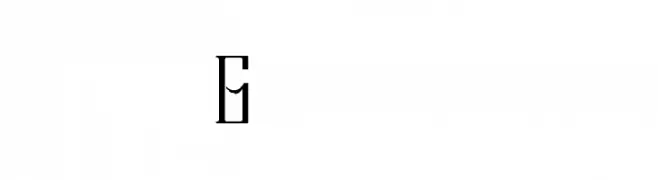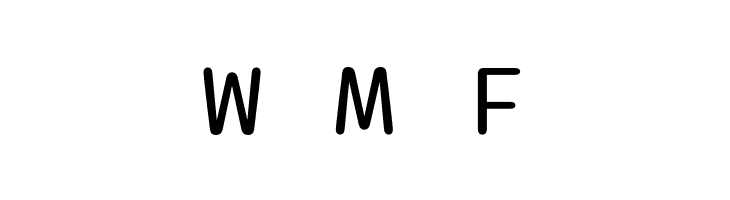
A tall, narrow, and modern font with a sleek, elongated design.
A bold, blocky font with an aggressive, industrial style.
A playful, bold font with rounded edges and a dynamic slant.
A playful, bold font with rounded, bubbly characters ideal for fun and creative projects.
A futuristic italic font with angular, consistent strokes and a dynamic slant.
A bold, italicized font with a strong, forward-leaning slant.
A playful, bold font with rounded, thick strokes and a whimsical touch.
A bold, rounded, and playful font with a hand-drawn feel.